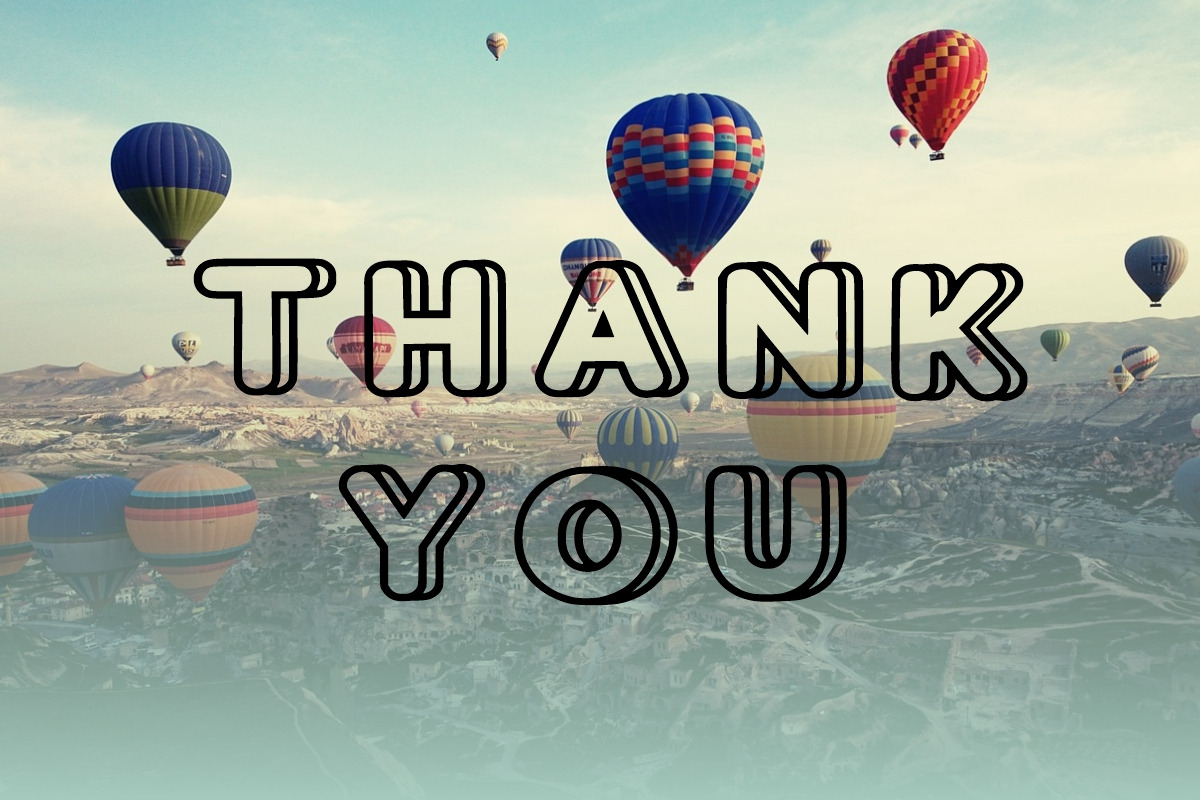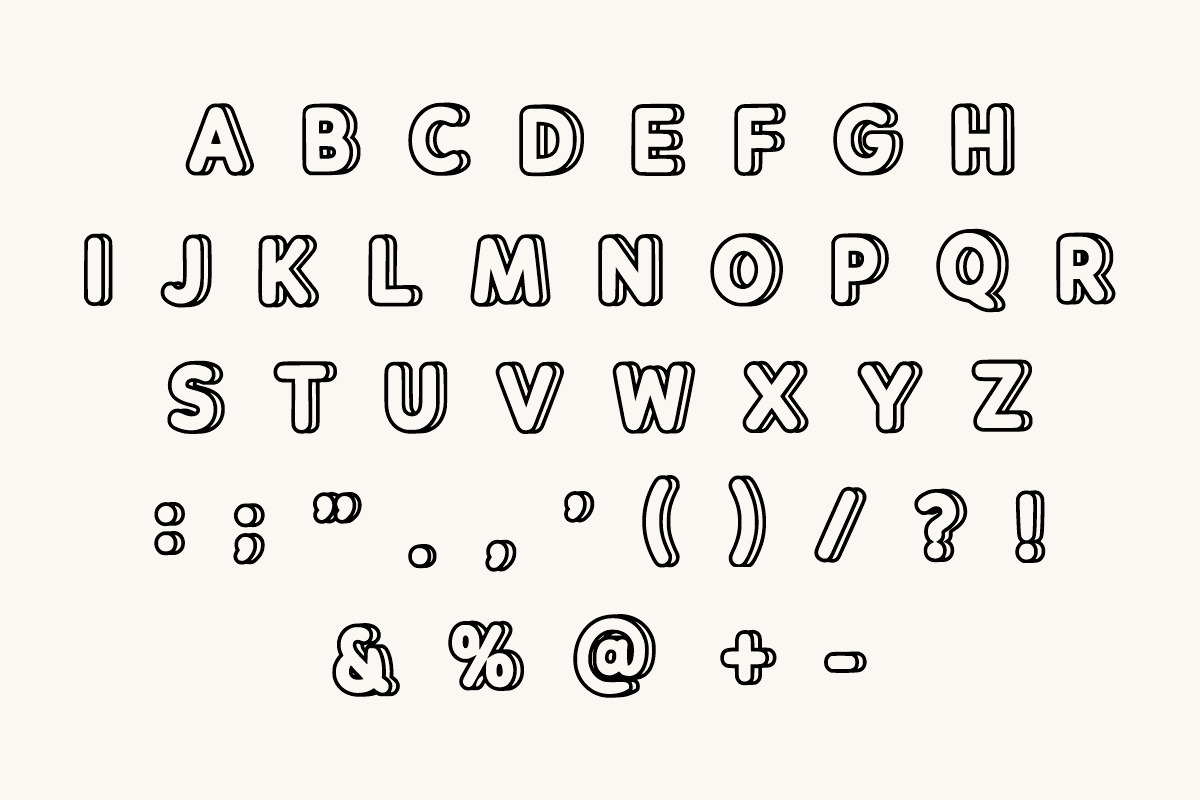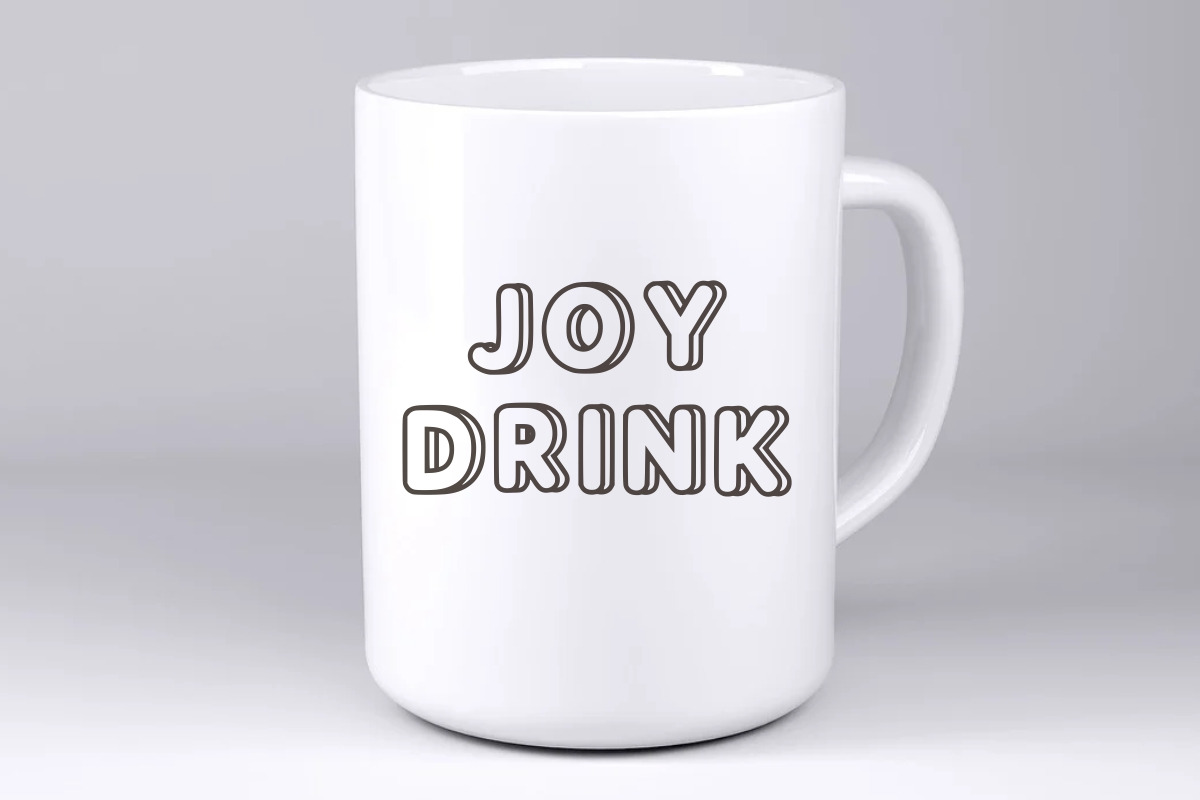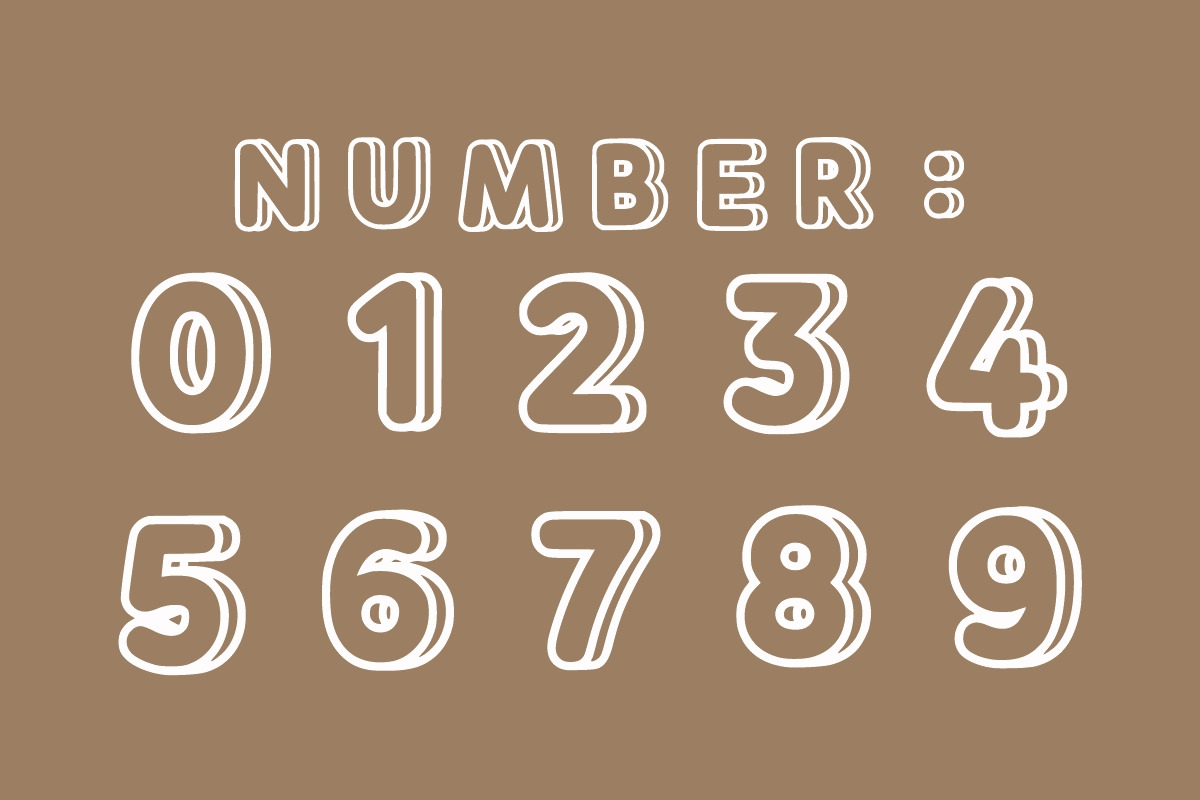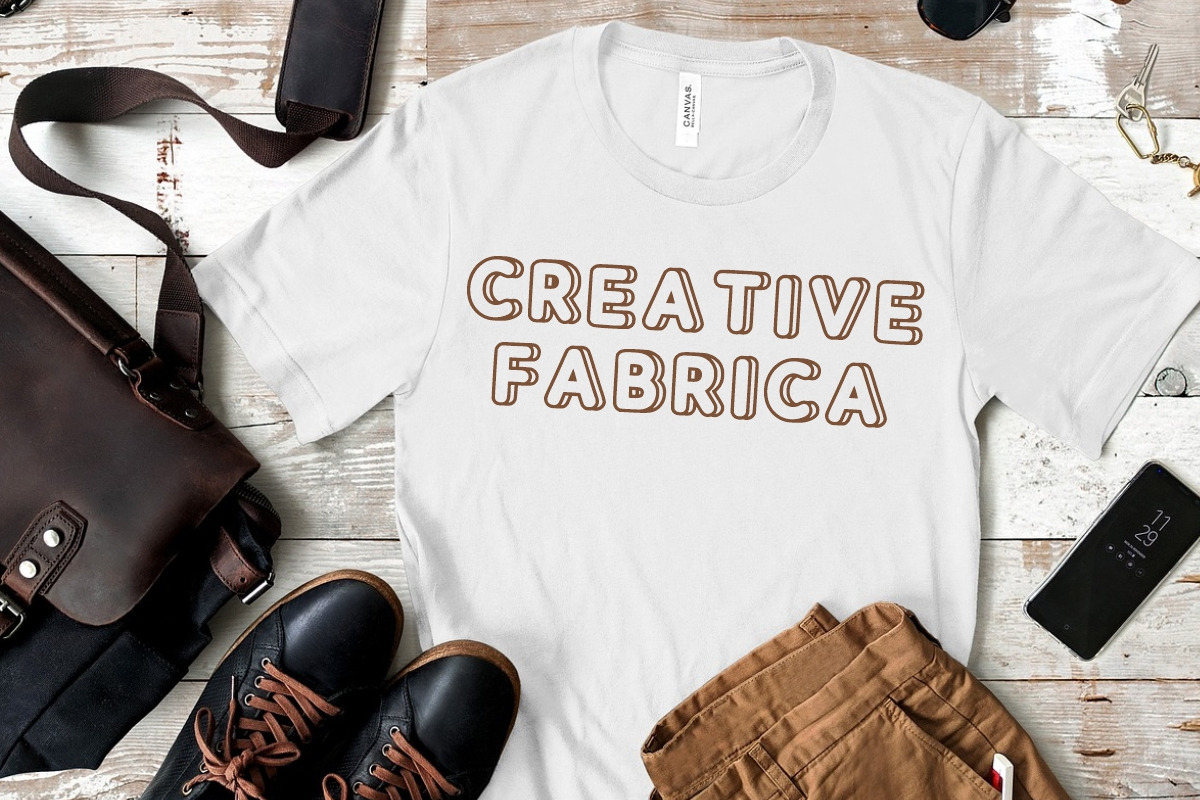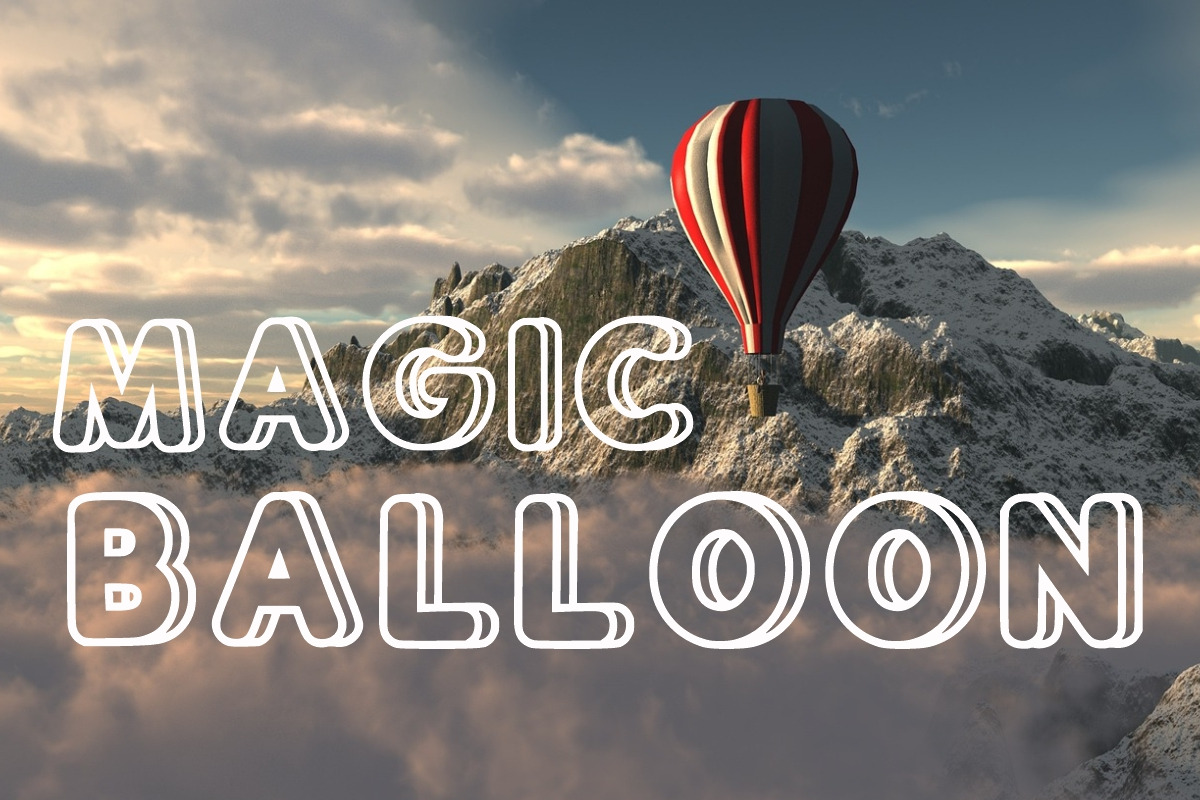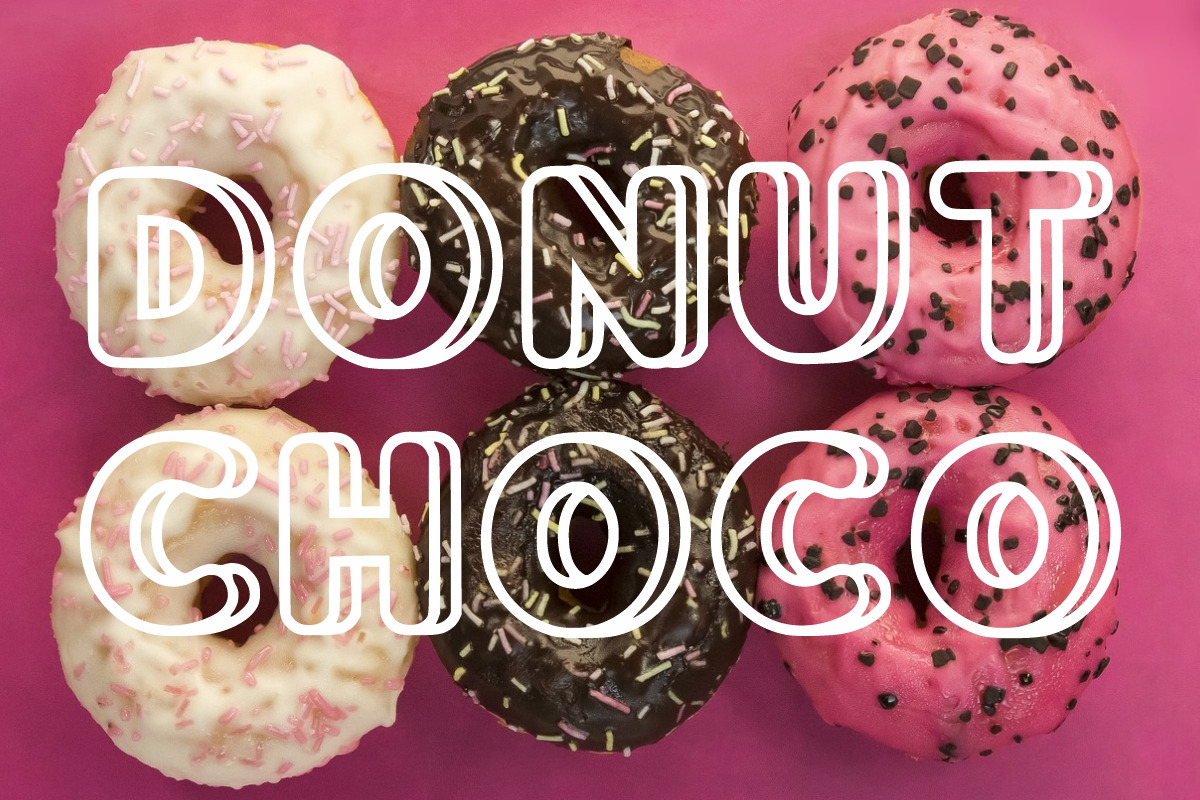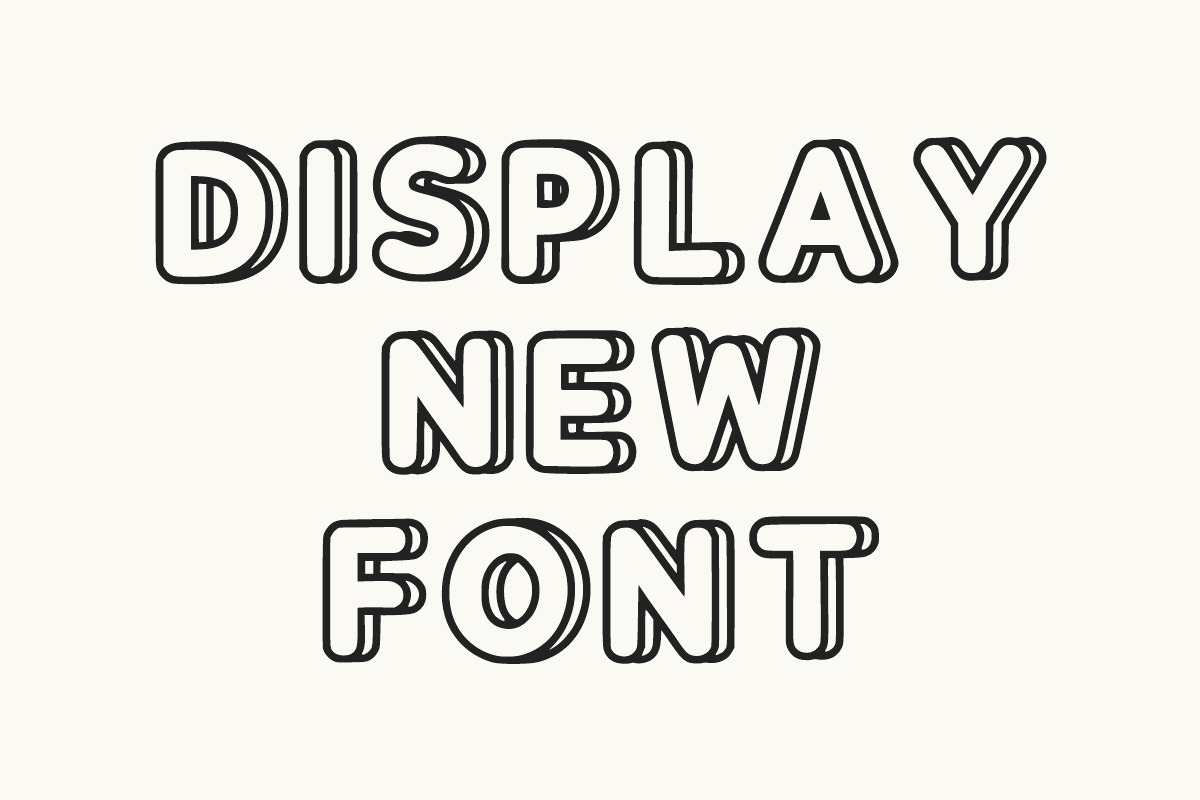
Crazy Donut
Crazy Dog is a bold, fun and cute display font, easy-to-read and with a friendly vibe. Whether you’re using it for crafts, digital designs, presentations, cover books, or making greeting cards, this font is the right choice.